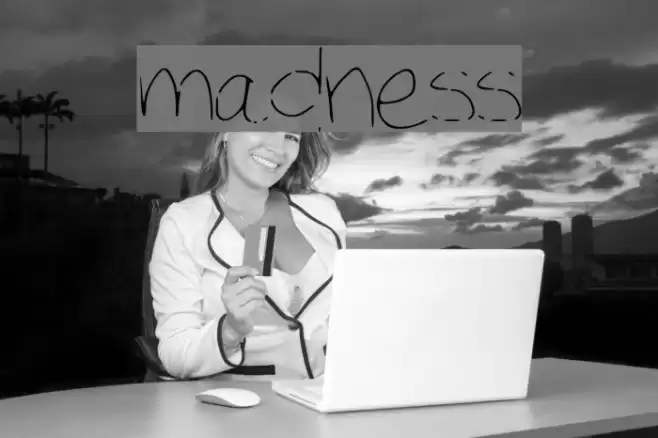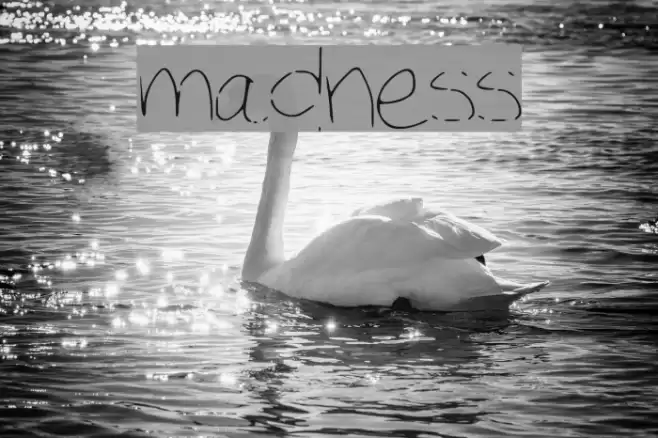
madness Font
madness Description
This font features a playful and chaotic design, with each character exhibiting a hand-drawn, sketch-like quality. The uppercase letters are bold and irregular, with varying line thicknesses that create a sense of movement and energy. The lowercase letters maintain a similar style, with a slightly more condensed form, adding to the whimsical nature of the font. Numbers and special characters follow the same artistic approach, ensuring consistency across all elements. The overall appearance is both unique and eye-catching, making it suitable for creative and informal projects.
| Proposed Projects | Ideal for children's book covers, playful branding, artistic posters, and creative social media graphics. |